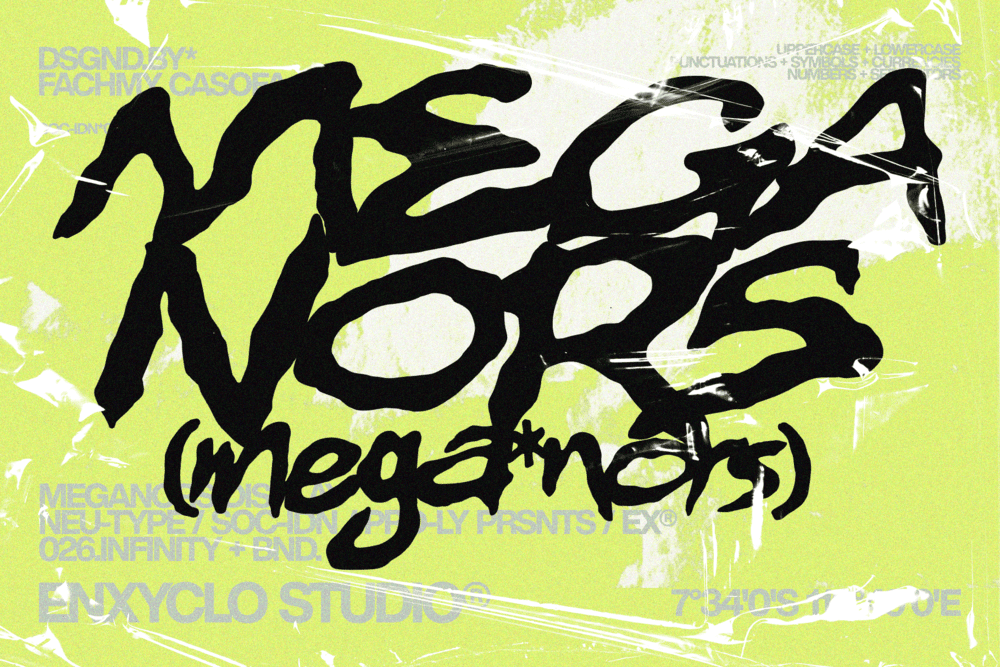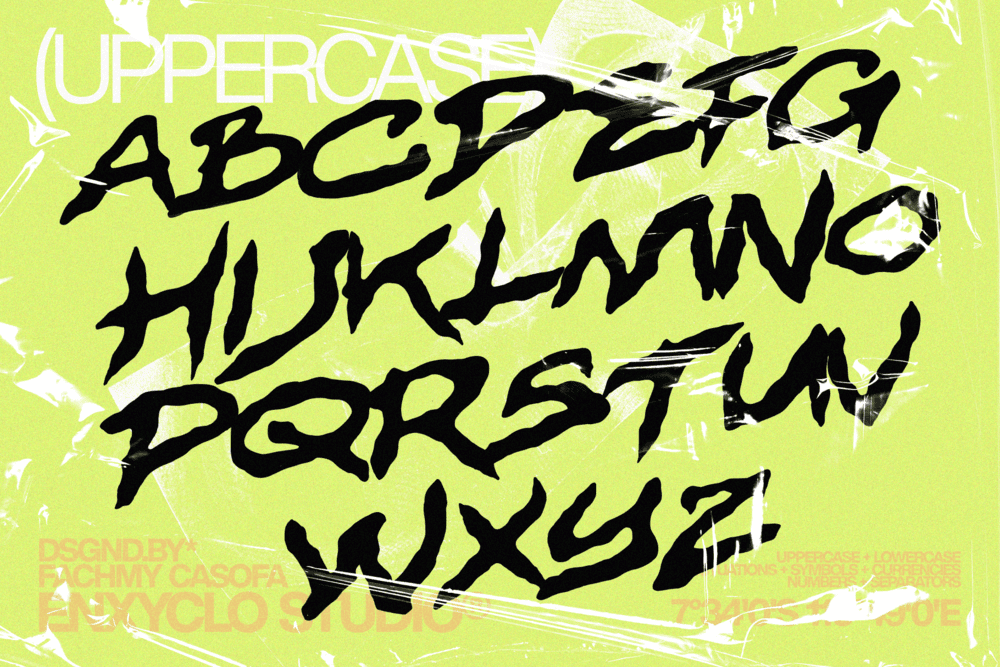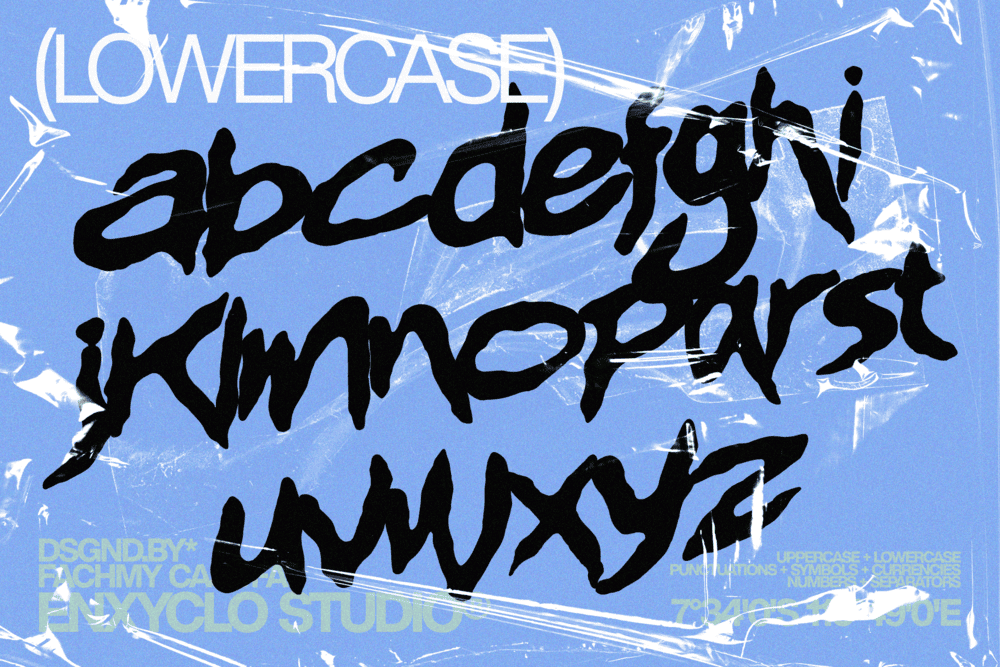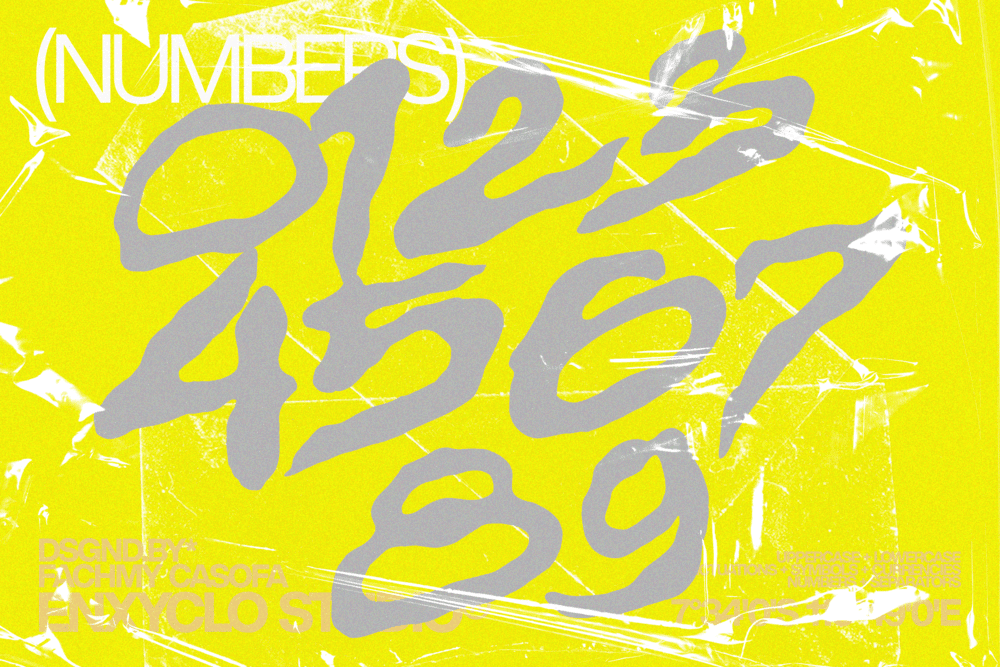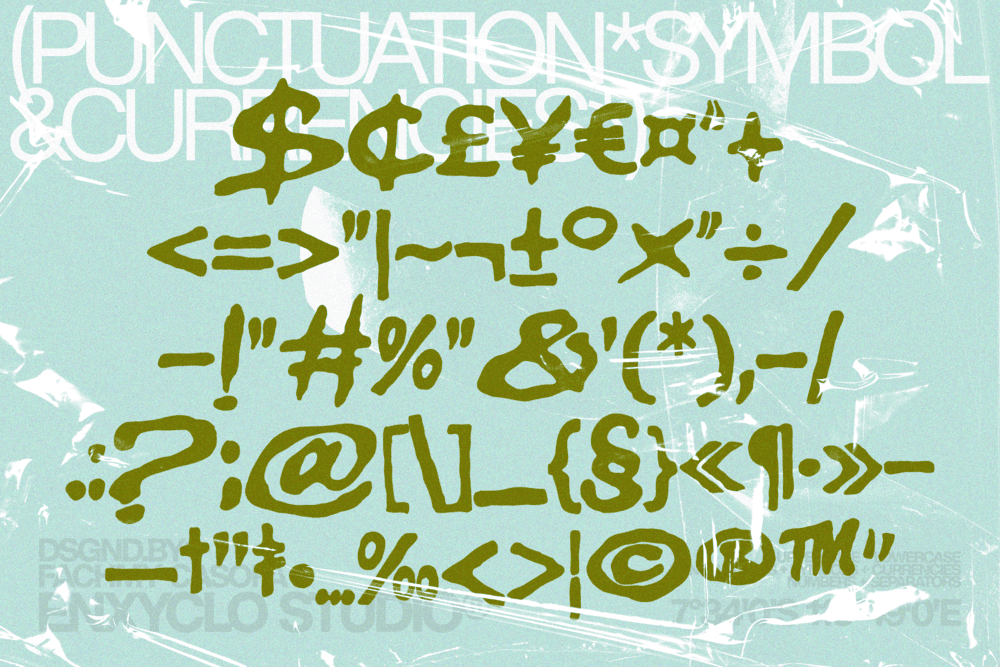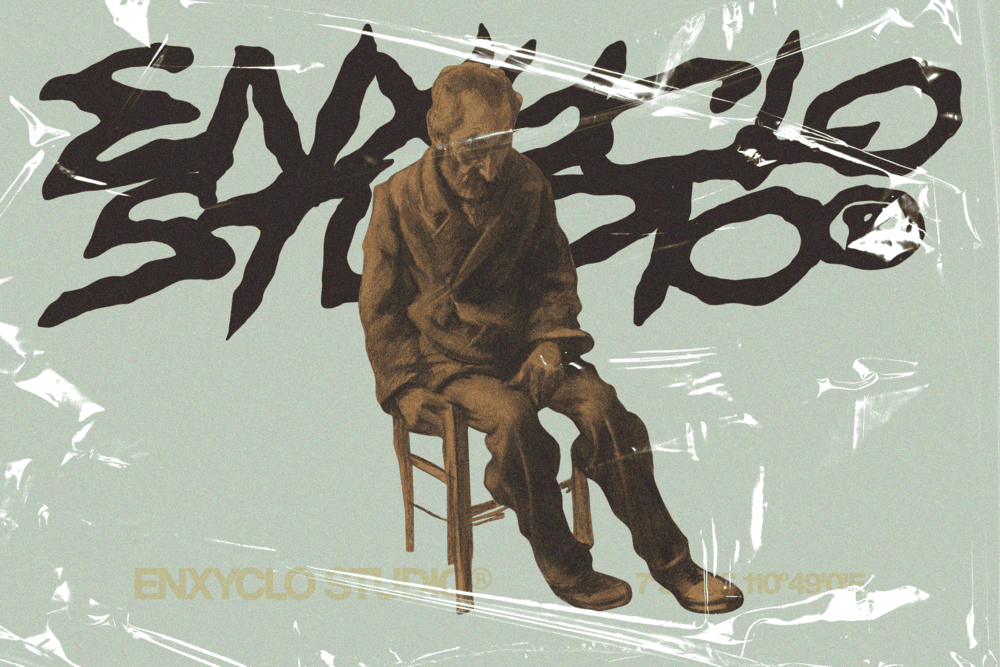
MEGANORS is a fearless expressive brush font built for modern brands that refuse to blend in. Born from rough hand-painted strokes and raw lettering energy, it captures the beauty of imperfection and transforms it into a confident contemporary statement. Every curve carries attitude. Every stroke feels alive. MEGANORS balances gritty texture with a clean, intentional structure—creating harmony between wild expression and modern control. The result is a bold visual voice that feels authentic, handcrafted, and powerfully present.
Designed for brands that crave character, MEGANORS delivers strong readability without sacrificing personality. It’s expressive yet purposeful. Rough yet refined. Loud yet strategic. From creative logos and agency branding to striking modern logotypes, MEGANORS injects energy and edge into every design it touches. This isn’t a font that sits quietly in the background. MEGANORS shows up.
FEATURE
• Uppercase letters
• Lowercase letters
• Punctuation marks
• Symbol set
• Currency symbols
PERFECT FOR
• Creative logo & logotype design
• Branding & brand identity
• Modern agency visuals
• Contemporary packaging
• Poster & headline design
• Creative campaigns & visual storytelling